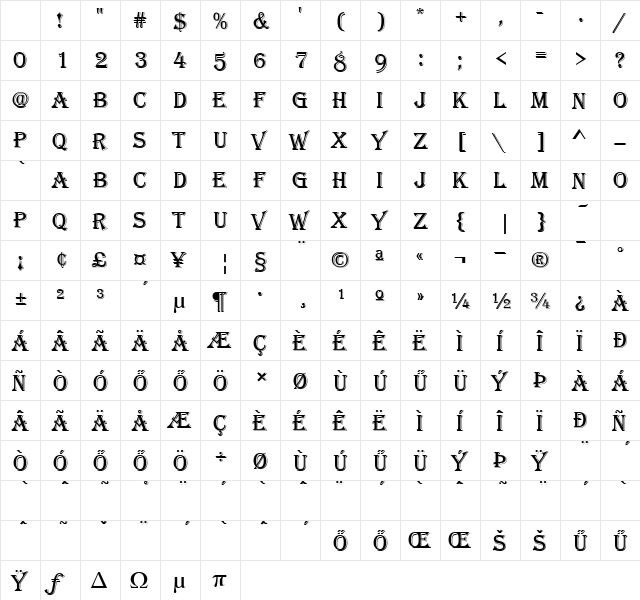
Complete H_Algerian Regular glyph index. Displaying only characters natively supported by H_Algerian Regular font.
H_Algerian is a composed and adaptable typeface that performs quietly and consistently across a wide range of design contexts.